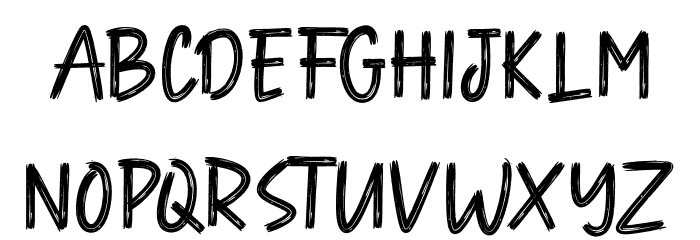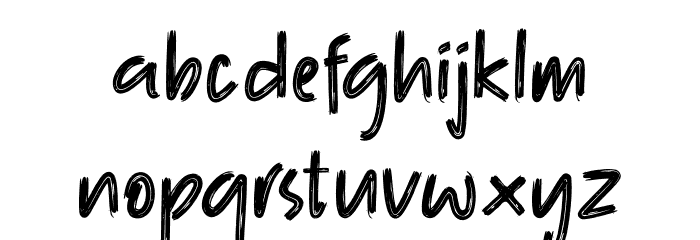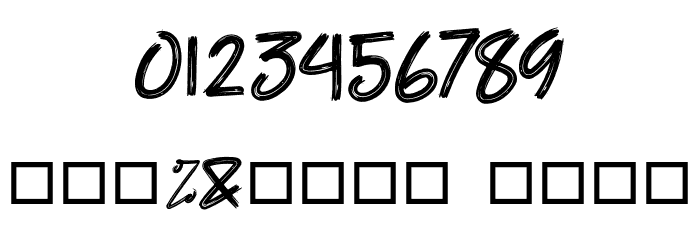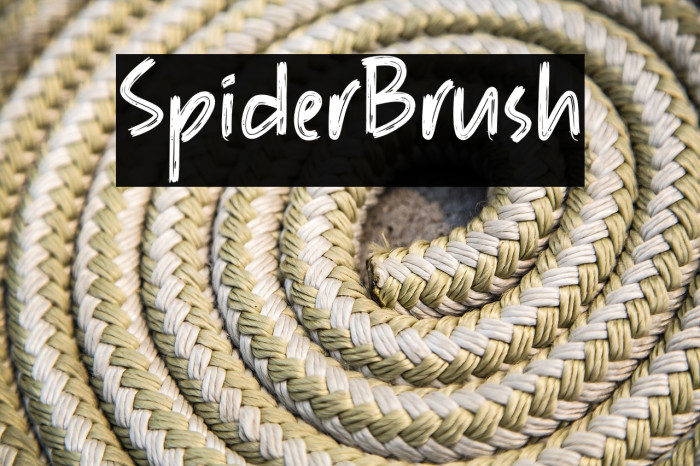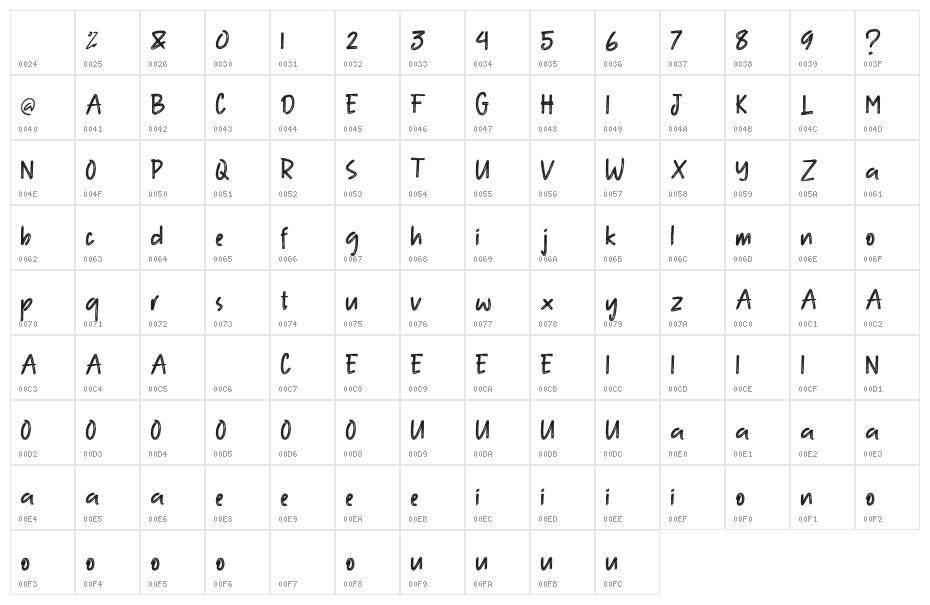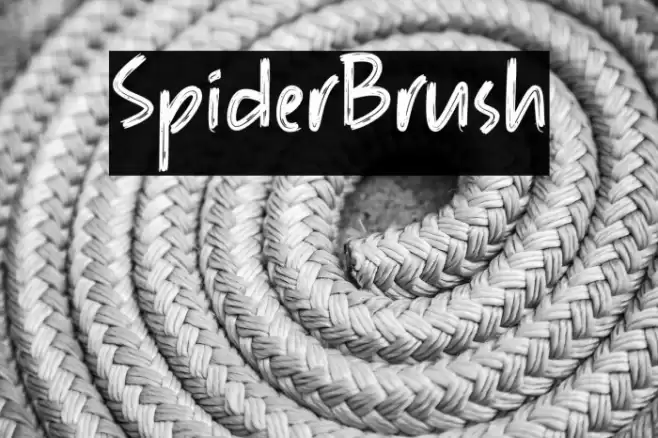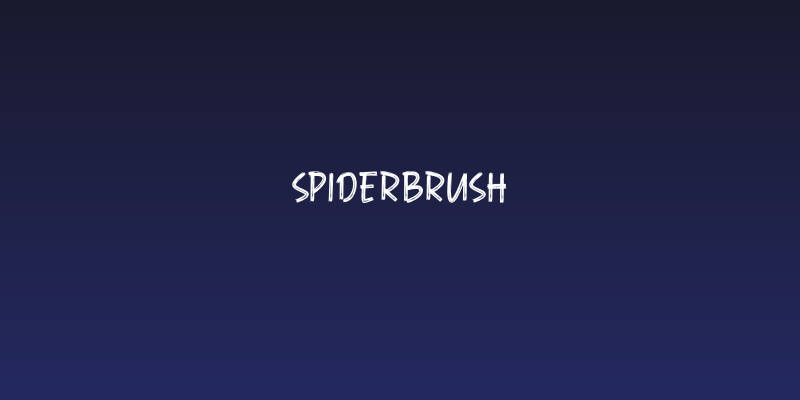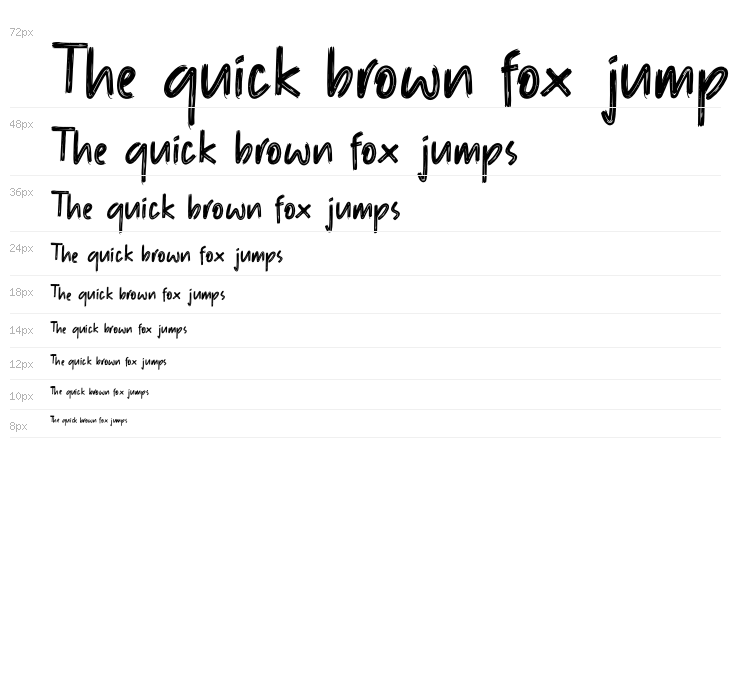
SpiderBrush Font
This font features a dynamic and energetic brush style, characterized by its bold and expressive strokes. The letters have a hand-painted appearance, with varying thickness that adds a sense of movement and spontaneity. The uppercase and lowercase letters maintain a consistent style, with slightly exaggerated curves and angles that enhance its playful and artistic vibe. The numbers and special characters follow the same design principles, ensuring a cohesive look across all elements. This font is perfect for projects that require a touch of creativity and flair, making it ideal for artistic and informal applications.
A bold and expressive brush-style font with dynamic strokes.
- Proposed Projects: Ideal for posters, creative branding, artistic projects, and informal invitations.
- Use Case: Logos, Posters, Creative Branding